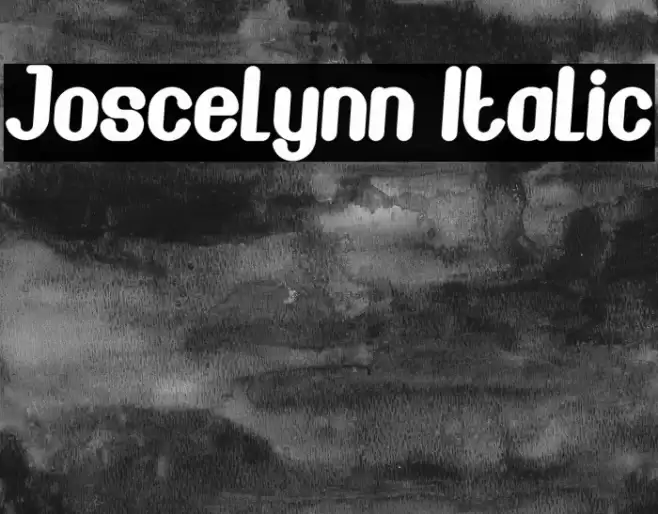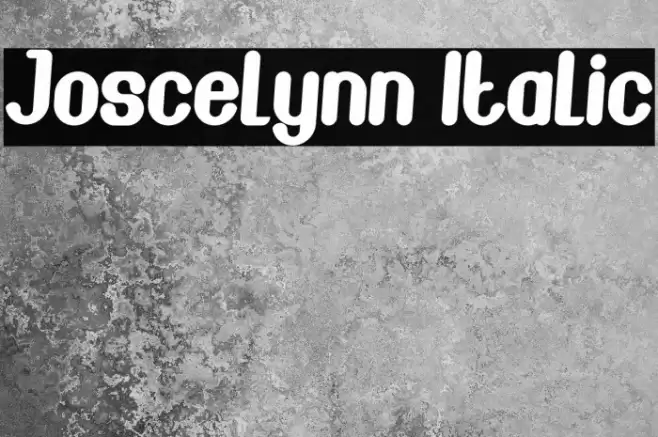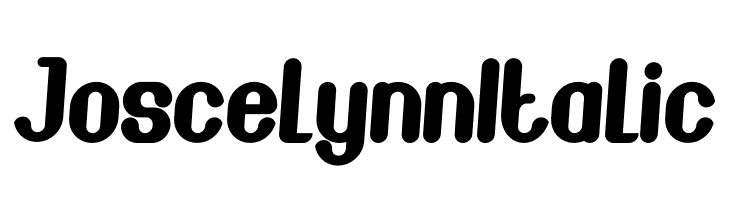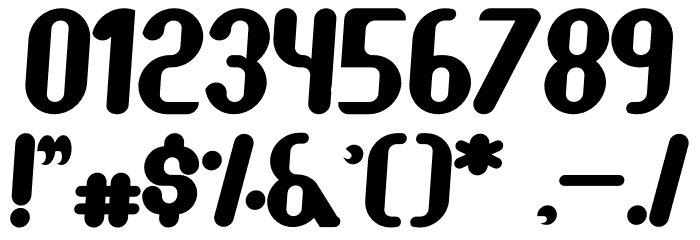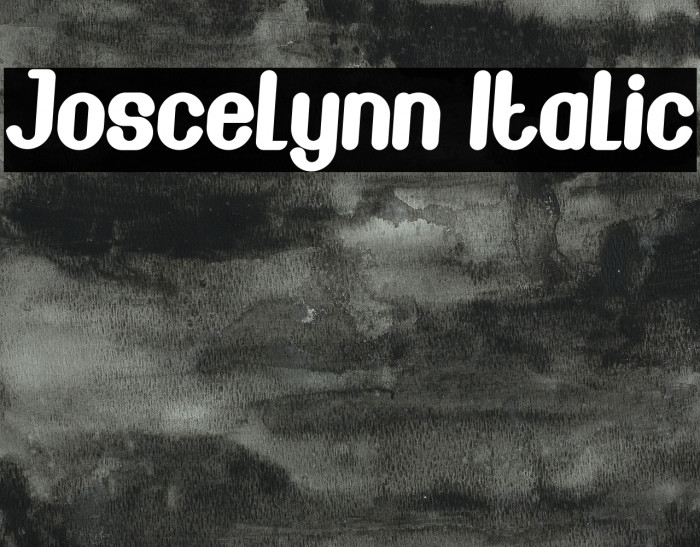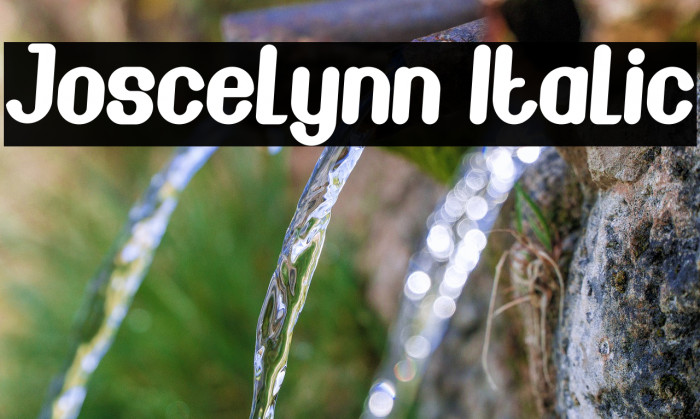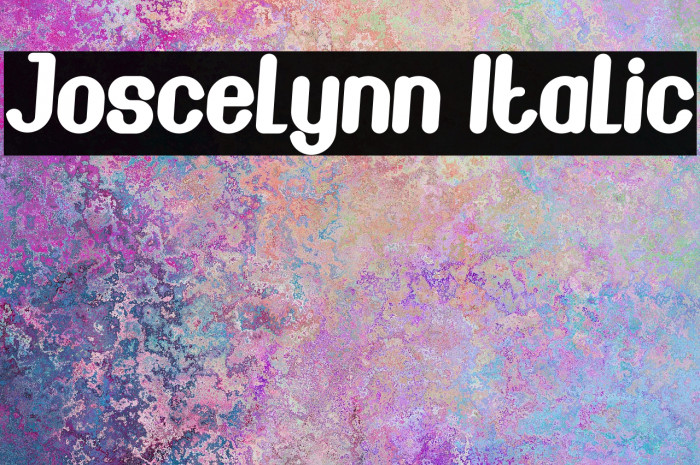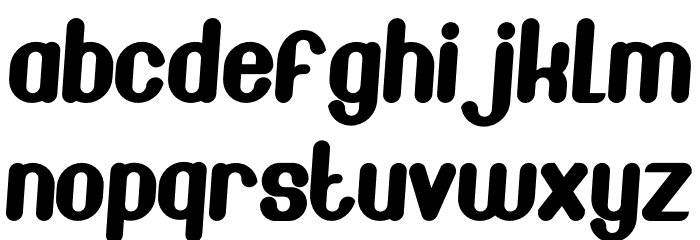
Joscelynn Italic Font
Joscelynn Italic Description
This font features a playful and bold design with rounded edges and a slightly condensed form. The characters are well-defined with a consistent stroke width, giving it a uniform appearance. The uppercase and lowercase letters maintain a cohesive style, with the lowercase letters having a slightly more relaxed and informal feel. The numerals are clear and easy to read, matching the overall boldness of the alphabet. Special characters are included, maintaining the same playful and bold style. This font is ideal for projects that require a fun and engaging look.
A playful, bold font with rounded edges and a consistent stroke width from Uncategorized fonts.
- Proposed Projects: Ideal for children's books, playful branding, posters, and creative packaging.
- Overall Style: Playful, Modern